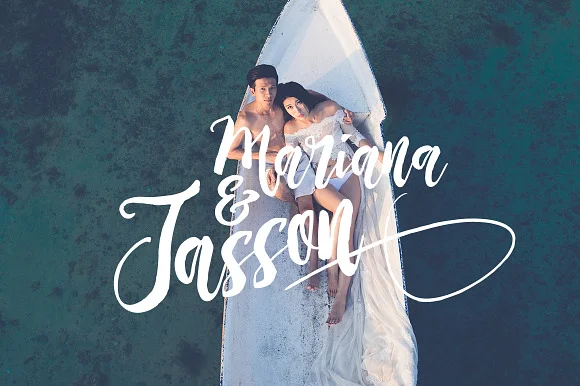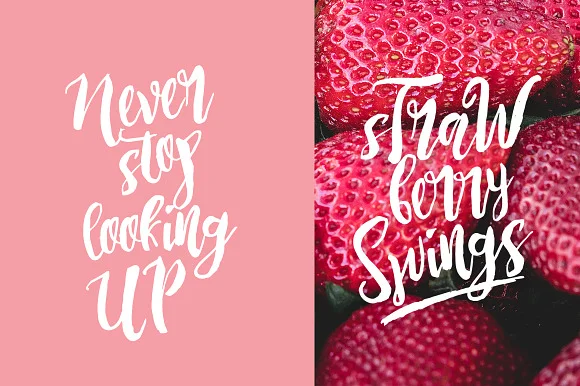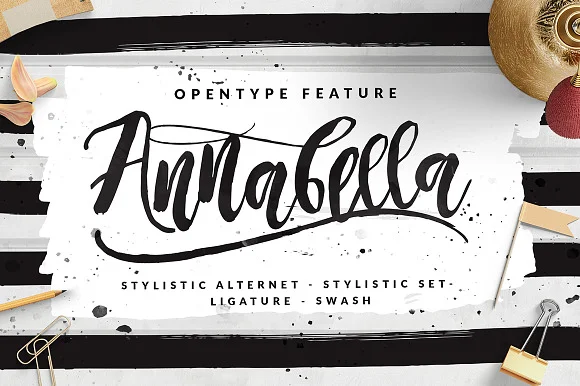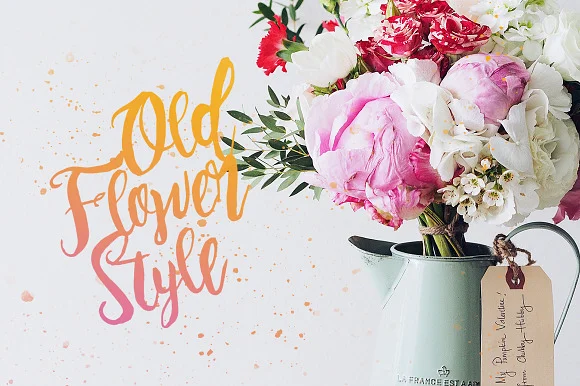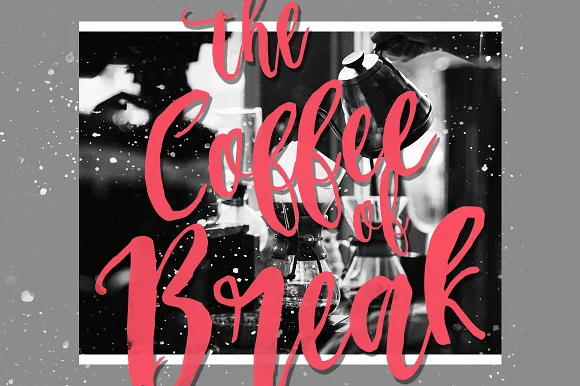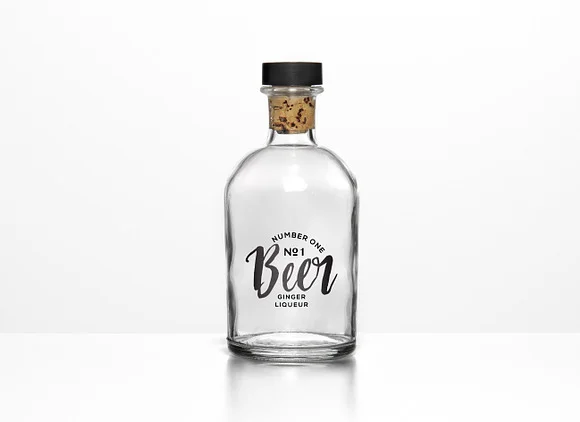
Rising Brush Script Font
There is a particular satisfaction in finding a typeface that delivers visual harmony and precise spacing without compromise. Rising Brush Script consistently provides it. The typeface brings an elegant, calligraphic sensibility to a broad range of creative disciplines, with versatility across print and screen contexts that holds up whether the work is print-first or screen-first.
In practice, Rising Brush Script proves particularly effective for feminine branding, boutique logos, wedding invitations, poster creation, fragrance labels. Designers reaching for it find that the type decisions feel resolved rather than laboured — a useful quality when client timelines are tight.
The range of applications extends to product labels, environmental graphics, greeting cards, perfume labels. That breadth is deliberate: the proportions and spacing were stress-tested across a wide range of mock briefs before the typeface was finalised.
Rising Brush Script sits comfortably alongside both classic and contemporary typefaces in multi-font hierarchies. It takes direction rather than competing for attention — a quality that experienced designers know is harder to find than it appears.
Motion designers building title sequences and lower thirds find Rising Brush Script a reliable choice for projects that demand both personality and restraint. The design avoids the self-conscious quirkiness that dates quickly, settling instead for considered distinctiveness that holds up over time.